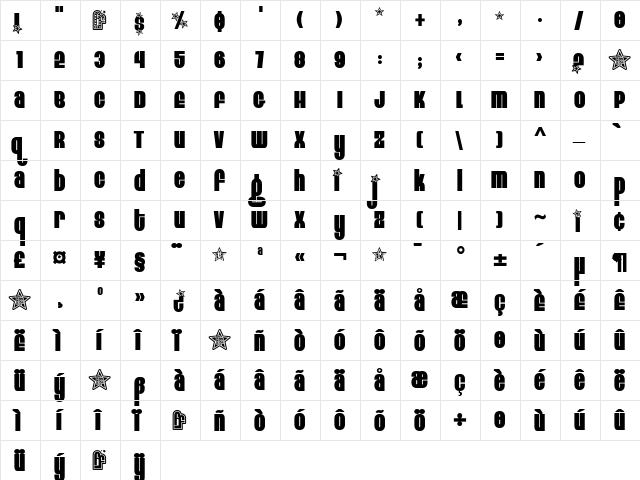
Eight Track program two Regular
Design Context for Eight Track program two Typeface
Eight Track program two is a composed and adaptable typeface that performs quietly and consistently across a wide range of design contexts.